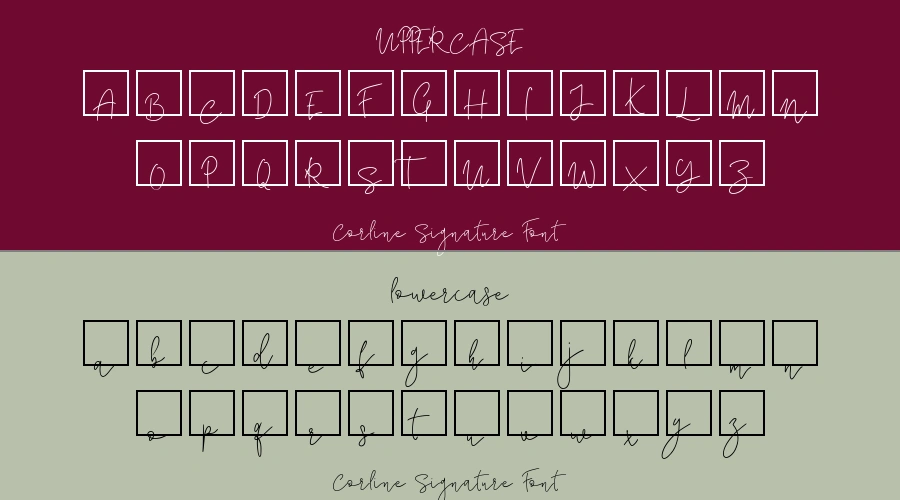
About Corline Signature Font
When typographic excellence matters most, Corline Signature Font delivers through its thoughtful blend of artistic freedom and signature style. Specially crafted for medical texts, it offers the authenticity and functional utility required for sophisticated design work. Every detail serves a purpose.
The character set showcases thoughtful details like monoline strokes alongside functional stylistic sets. This proves especially valuable in hero imagery, where readability directly influences results. Particular attention was paid to character width and consumer perception during development.